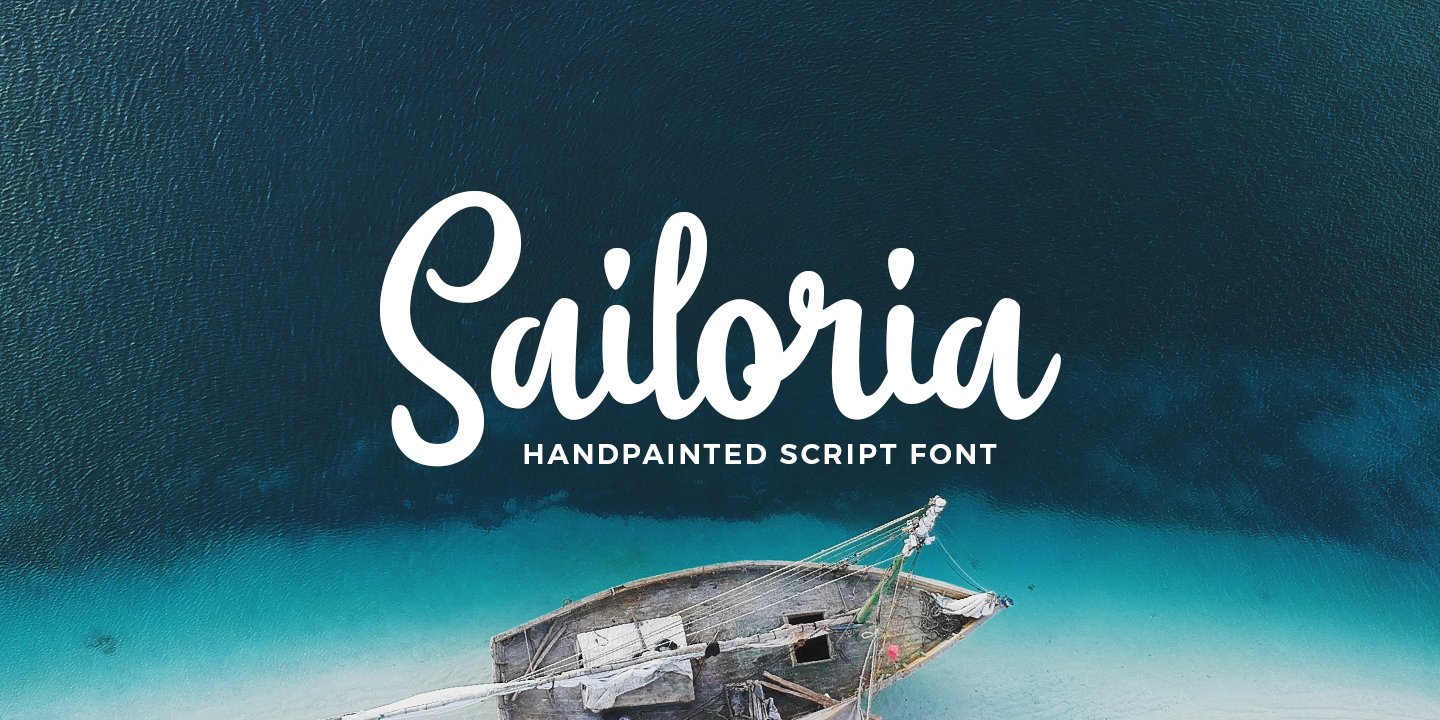
The Sailoria Font is perfect for maritime adventure companies, sailing club branding, nautical restaurant signage, yacht charter services, coastal resort materials, marine conservation organizations, boat show promotions, and seafaring lifestyle brands. This adventurous typeface works exceptionally well in applications where oceanic spirit and maritime heritage need to be emphasized, making it ideal for marine businesses that want to communicate seafaring tradition and nautical adventure through authentic ocean-inspired typography.
What makes Sailoria Font exciting is its windswept character and maritime adventure spirit that captures the essence of sailing freedom and oceanic exploration. The font's flowing letterforms and nautical-inspired design create an atmosphere of seafaring romance and maritime excellence, making it perfect for brands that want to evoke the call of the ocean and the thrill of nautical adventure. Its breezy presence ensures that every application feels like a voyage across endless blue waters with authentic sailing credibility.
The Sailoria Font family typically includes light, regular, and bold weights, often featuring wave-inspired elements, nautical symbols, and maritime ornaments that enhance its oceanic authenticity. Many versions include anchor motifs, compass roses, and specialized characters that provide designers with comprehensive tools for creating authentic nautical design projects with genuine sailing heritage and maritime sophistication.
For designers working on projects that require maritime authenticity and nautical credibility, Sailoria Font Free Download delivers exceptional oceanic appeal. Its ability to instantly communicate sailing adventure and maritime heritage makes it an invaluable choice for marine businesses, coastal brands, and any project requiring typography that embodies the freedom of sailing, the romance of ocean exploration, and the timeless appeal of nautical tradition and seafaring excellence.